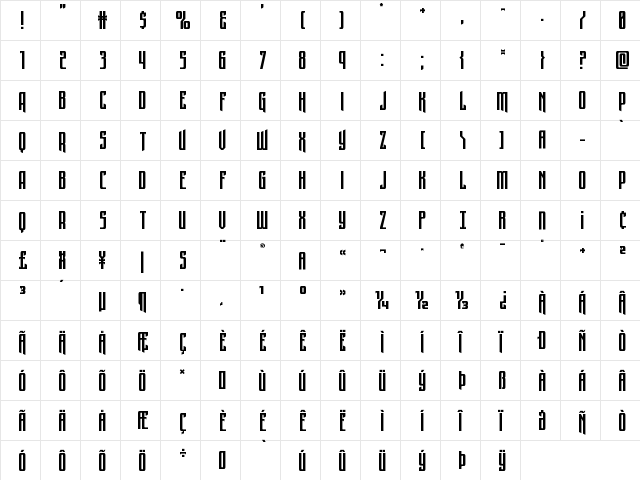
Night Traveler Title Regular
Design Context for Night Traveler Title Typeface
Night Traveler Title is a composed and adaptable typeface that performs quietly and consistently across a wide range of design contexts.
Pro Tip: Use Night Traveler Title in both headline and body roles to test its range before committing to a single application.